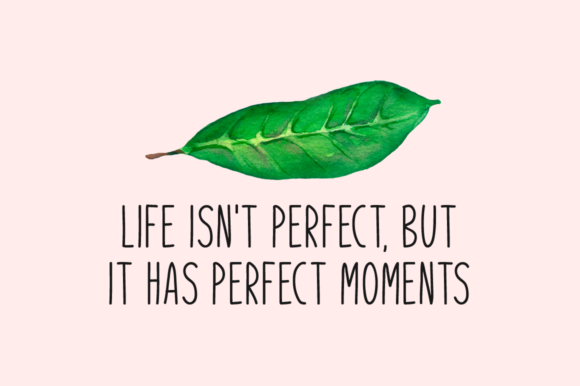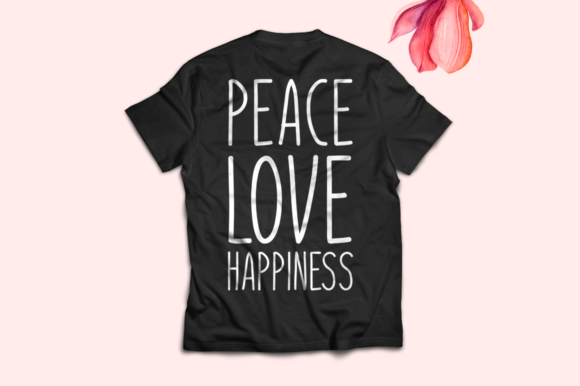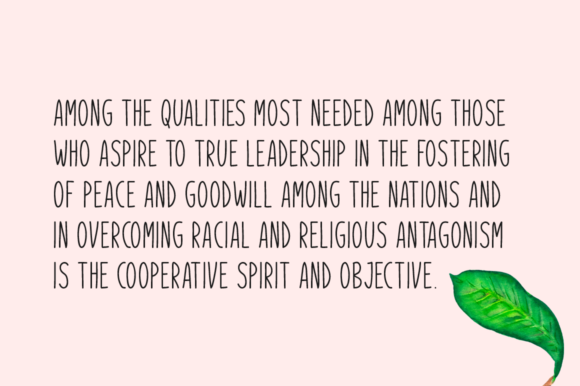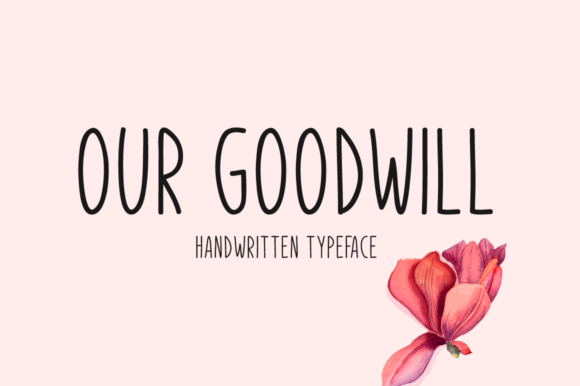
Introduction to Our Goodwill Font
Our Goodwill is a beautiful handwritten font.
This versatile script font has a wide range of applications ranging from greeting cards to kids’ crafts, and is guaranteed to add a sweet touch to your next design .
Key Features of Our Goodwill Font
Why Choose Our Goodwill Font?
Our Goodwill Font offers exceptional quality and versatility, making it a valuable addition to your design toolkit. Whether you’re creating for personal projects or commercial use, Our Goodwill Font delivers professional results.